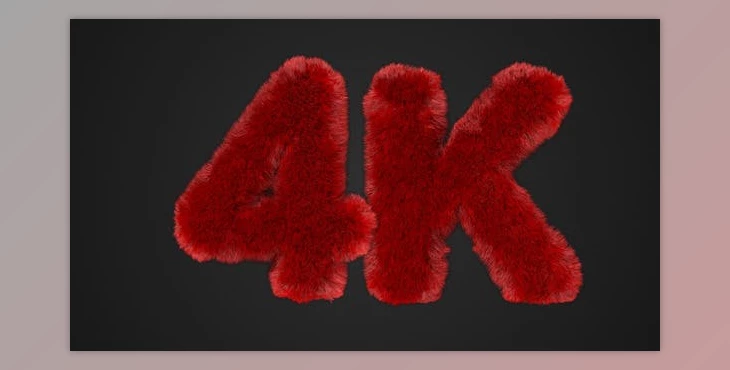
Hairy Text Typeface - AE Project 11241766:
Hairy Text is an animated collection of letters, numbers, and symbols that have real hair. It can be used to create the words you want, or combine them to make sentences. You can also use it to create your own typography videos. You can use it to create your own animations or your own scenes. The project includes a help file that allows you to change the colors of the characters. Each character is in Ultra HD (3840x2160), resolution with an alpha channel. This allows you to use them in projects that require 4k or 8k displays.